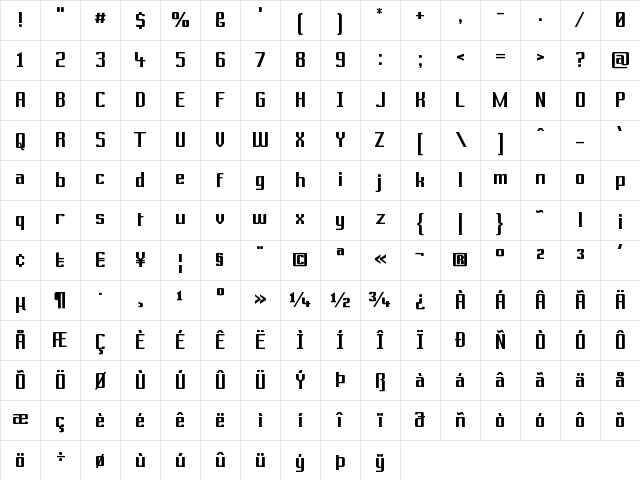
Prussian Brew Solid Regular
Designer: Graham Meade
Design Context for Prussian Brew Solid
Prussian Brew Solid is a composed and adaptable typeface that performs quietly and consistently across a wide range of design contexts.